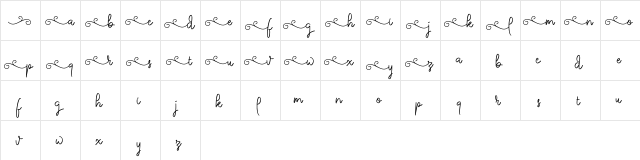
ketika Regular
Design Context for ketika Typeface
ketika is a composed and adaptable typeface that performs quietly and consistently across a wide range of design contexts.